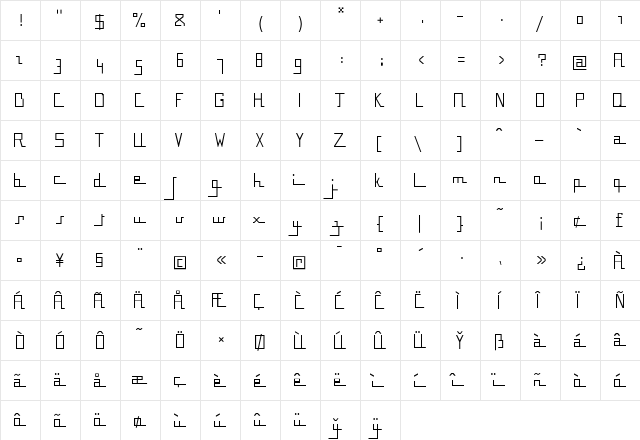
BousniCarre LT Std Light Regular
| Foundry | Linotype Library GmbH |
| Designer | Bachir Soussi Chiadmi |
Design Context for BousniCarre LT Std Light Typeface
BousniCarre LT Std Light offers clean, dependable letterforms without strong stylistic allegiance, making it a practical choice for designers who need flexibility. Its slender proportions lend an understated elegance to any composition.